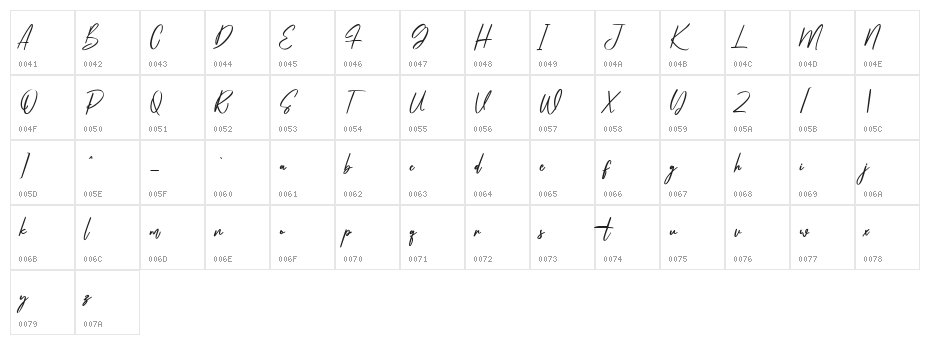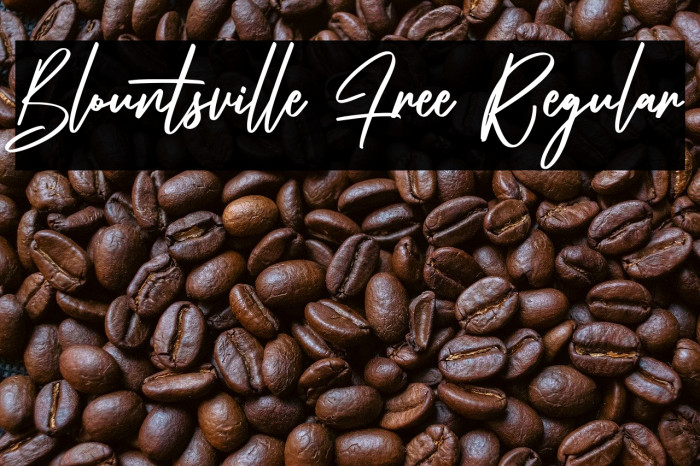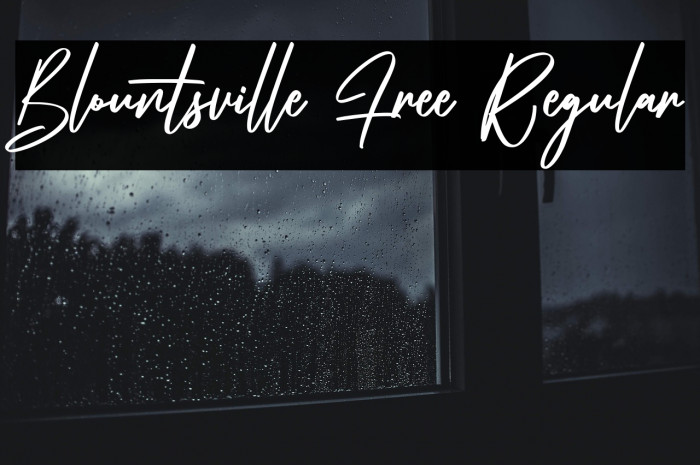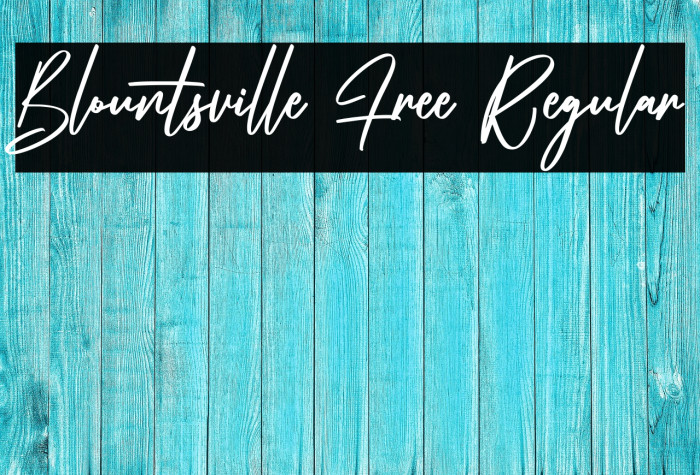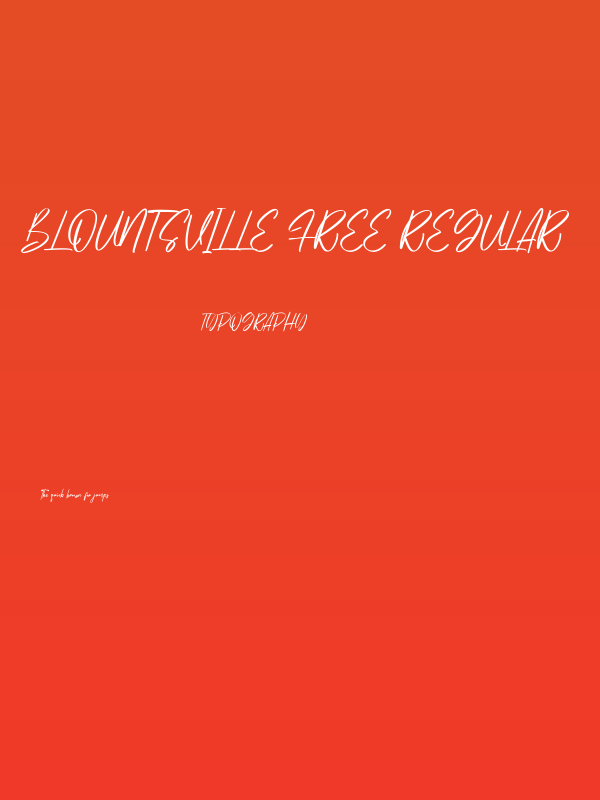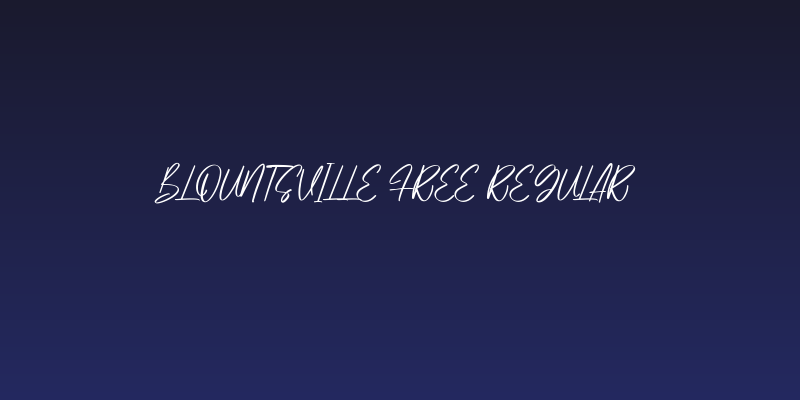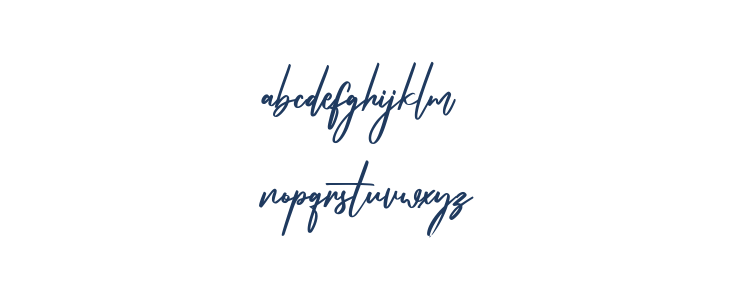
Blountsville Free Regular Font
Blountsville Free Regular Description
This font features a flowing, cursive style with a modern twist. The letters are elegantly connected, creating a seamless and fluid appearance. The strokes are smooth and consistent, with a slight slant that adds dynamism and movement. The uppercase letters are bold and prominent, while the lowercase letters maintain a delicate and graceful form. The font exudes a sense of sophistication and creativity, making it ideal for projects that require a personal touch. Its unique style is both eye-catching and easy to read, making it versatile for various design applications.